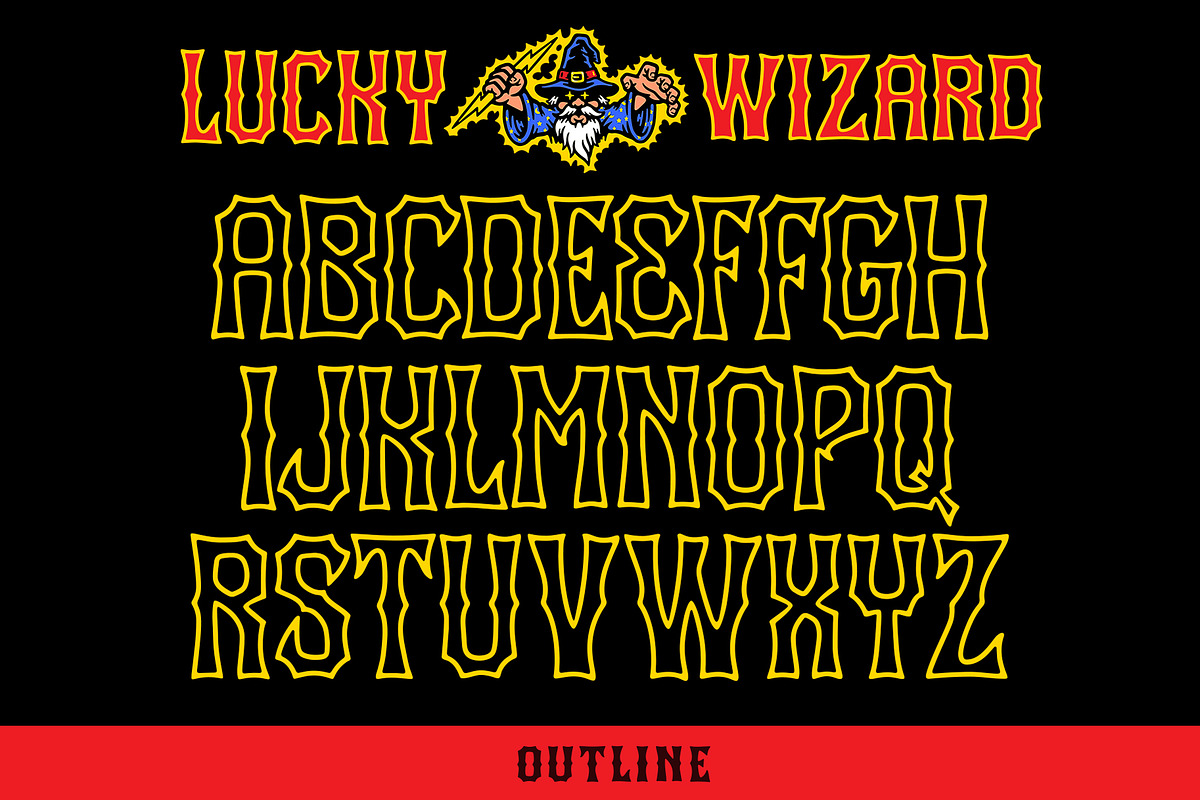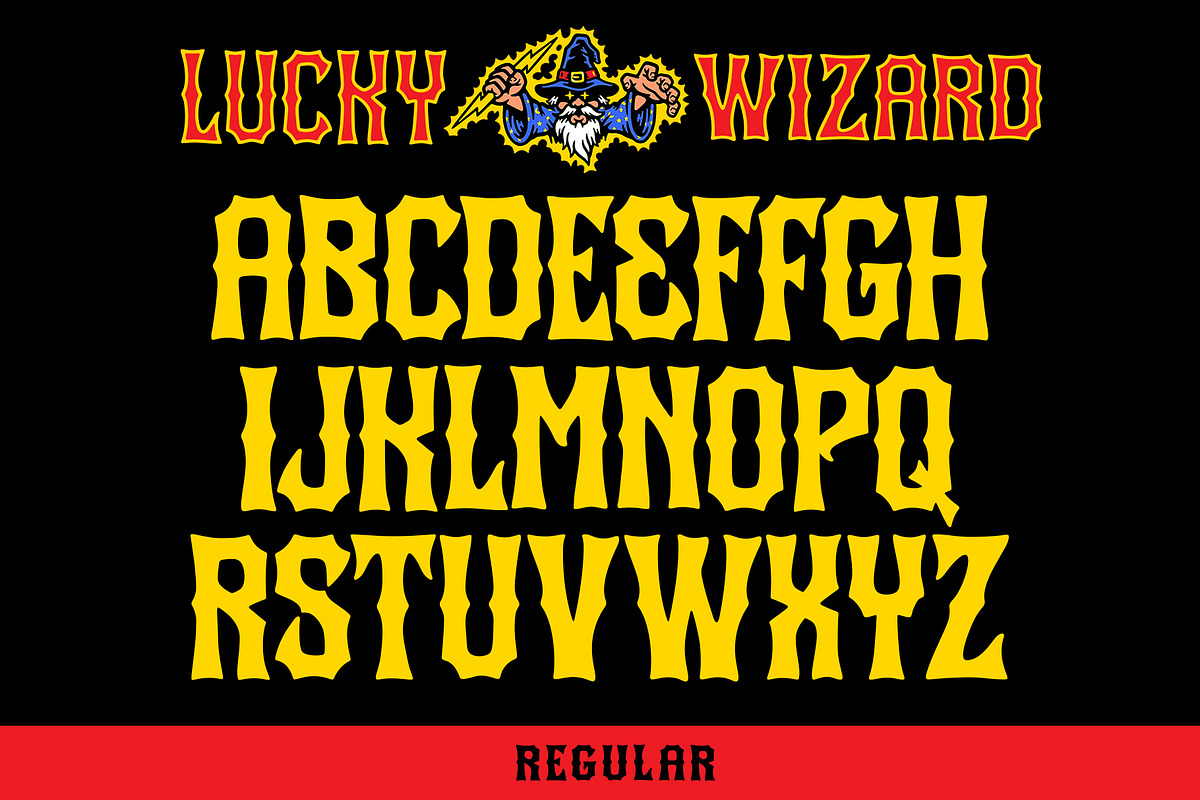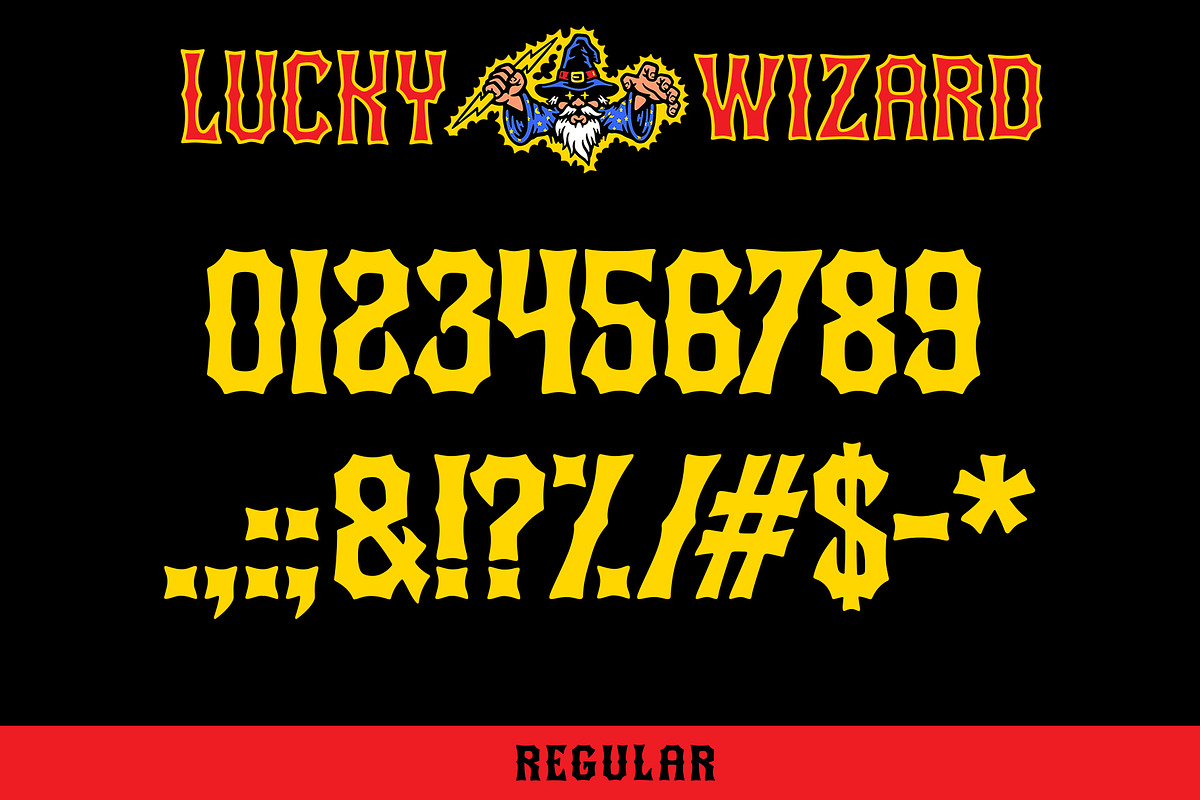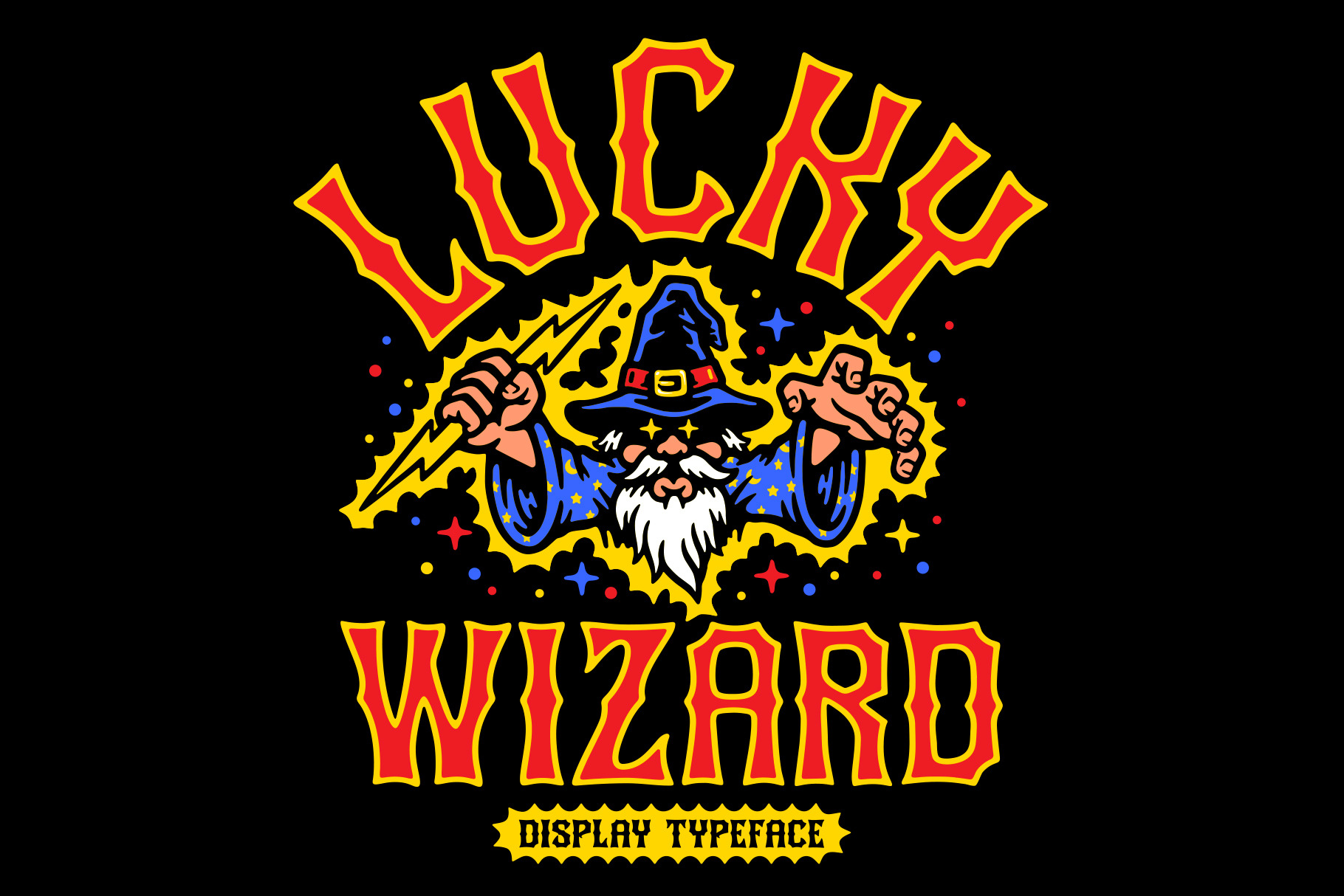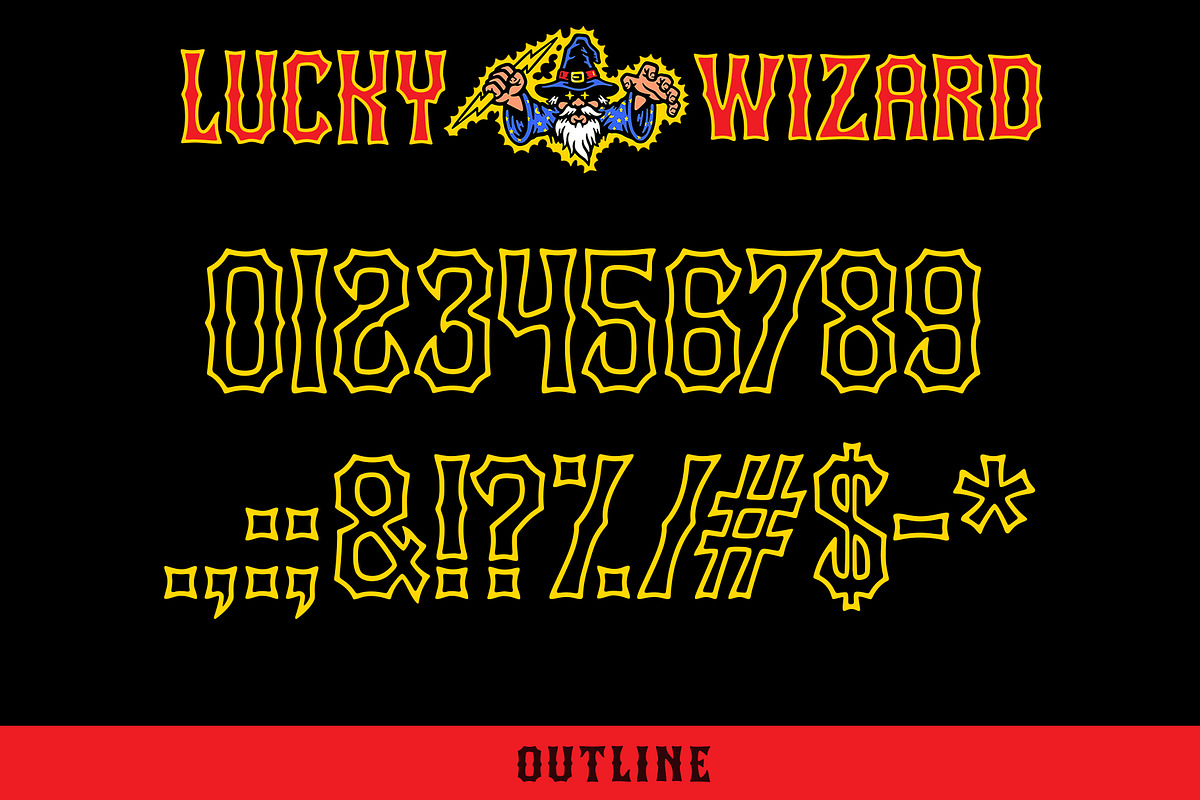
Lucky Wizard typeface
Lucky Wizard Typeface comes with Uppercase Letters, Numbers and some punctuation.
This retro feel will be a great to improve your tee-shirt design, publications, web, packaging, logos...
Includes 2 fonts: Regular and Outline version.